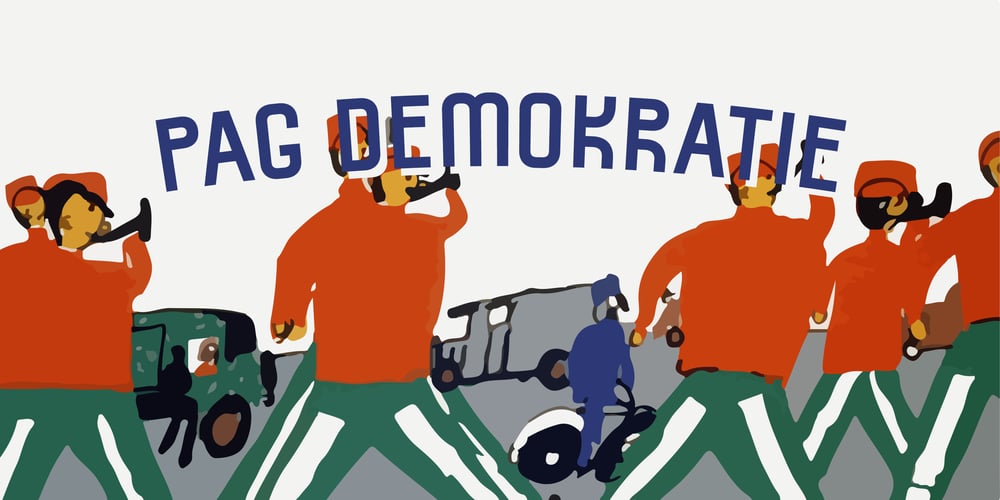
PAG Demokratie Font Family was designed by Ryoichi Tsunekawa and published by Prop-a-ganda. PAG Demokratie contains 1 styles and family package options. Prop-a-ganda offers retro-flavored fonts inspired by lettering on retro propaganda posters, retro advertising posters, retro packages all the world over. This is perfect font for your retrospective project. When you type in this font, the typography looks like that small guards are marching in the street. This retro font is pretty, but it also has a punctual impression. PAG Demokratie is a perfect font for posters, magazines, product packages and all of your creations.